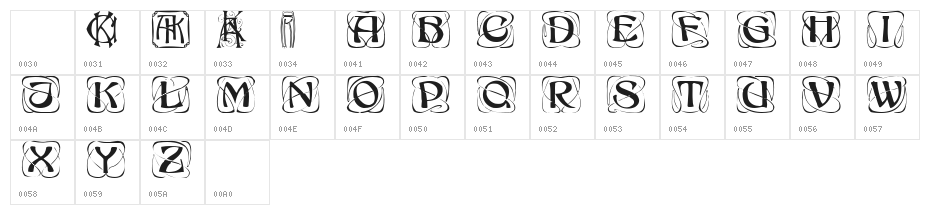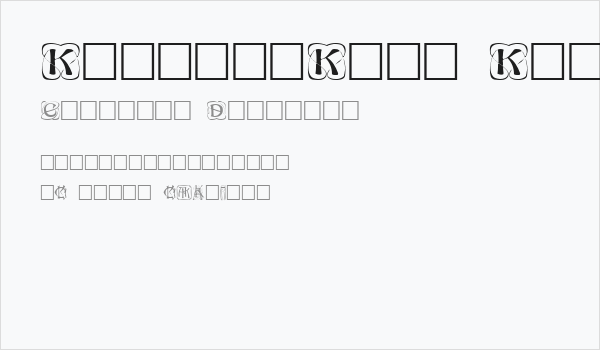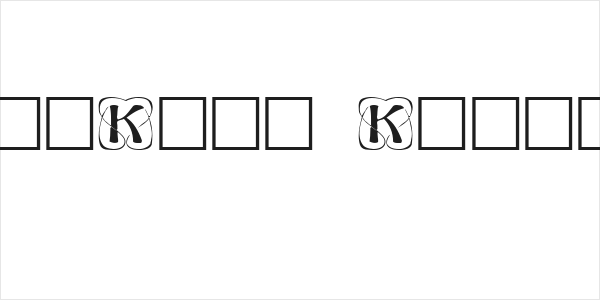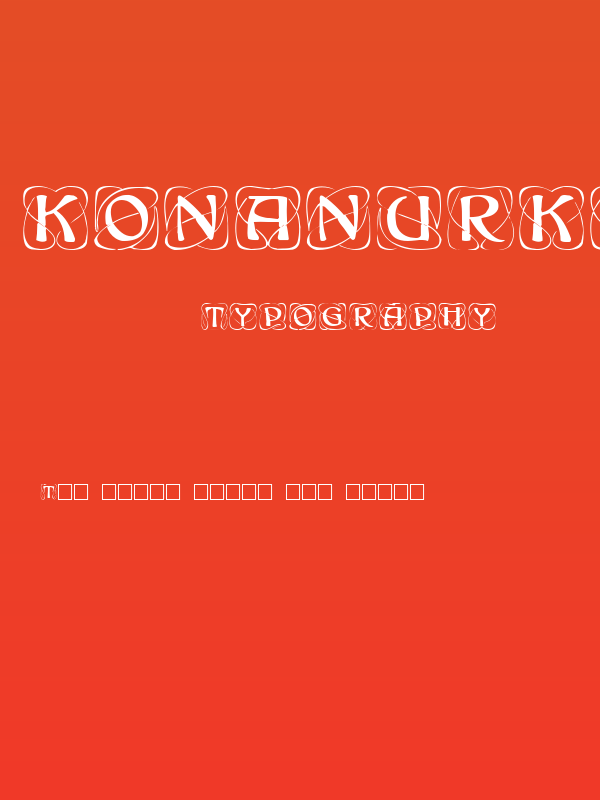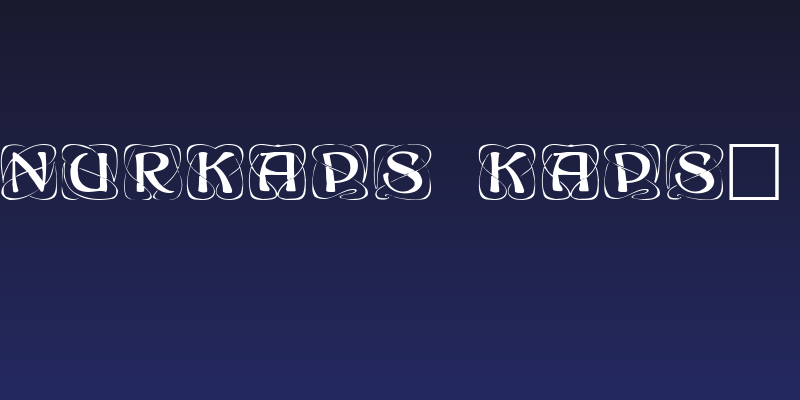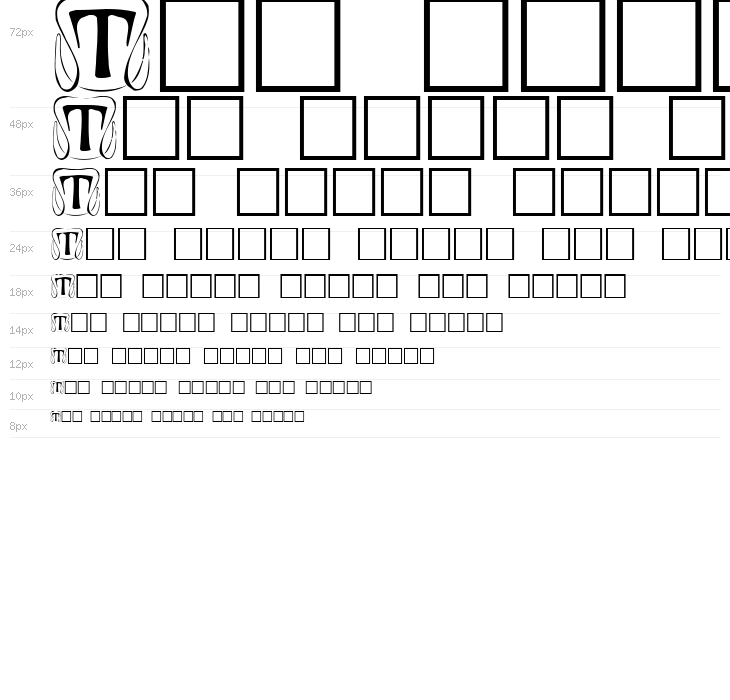
KonanurKaps Kaps:001.001 Font
KonanurKaps Kaps:001.001 Description
This font features a highly decorative and ornamental style, with each letter enclosed in a square frame. The characters are embellished with intricate swirls and flourishes, giving them a unique and artistic appearance. The uppercase letters are bold and prominent, making them suitable for attention-grabbing designs. The font's elaborate design suggests a vintage or classical influence, reminiscent of ornate signage or decorative motifs from historical periods. The overall aesthetic is both elegant and eye-catching, making it ideal for projects that require a touch of sophistication and flair.